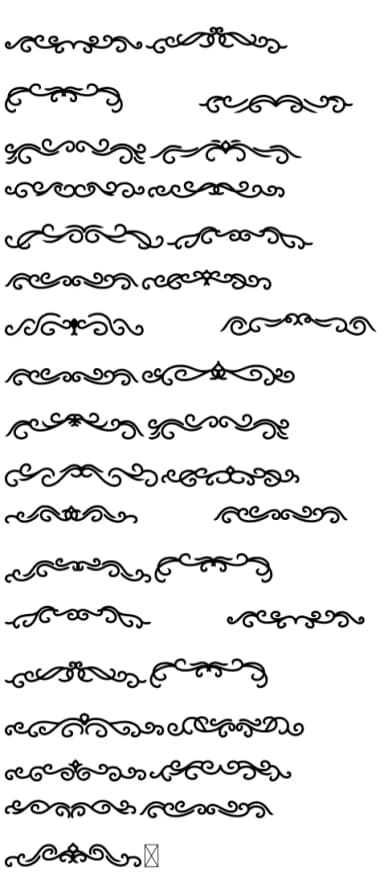
Picture yourself framing a holiday gift box with ornamental borders or designing Christmas card suites that need decorative flourishes. Lines Divider by Eystore is a dingbats font built entirely from vintage-styled line ornaments, creating clean and sophisticated dividers and accents for your designs. This typeface excels for wedding invitation suites, personalized Christmas greeting cards, and sublimation work on tumblers, mugs, and crafted goods.
The font's real strength is its bold linework, which holds beautifully at large sizes and stays crisp when scaled down for gift tags and trim details. You can layer it across social media graphics or apply it to print projects, merchandise, and textiles. Because it's structured as individual ornament characters, you can mix and match elements to build custom borders and patterns tailored to each project.
Lines Divider Font
by Eystore